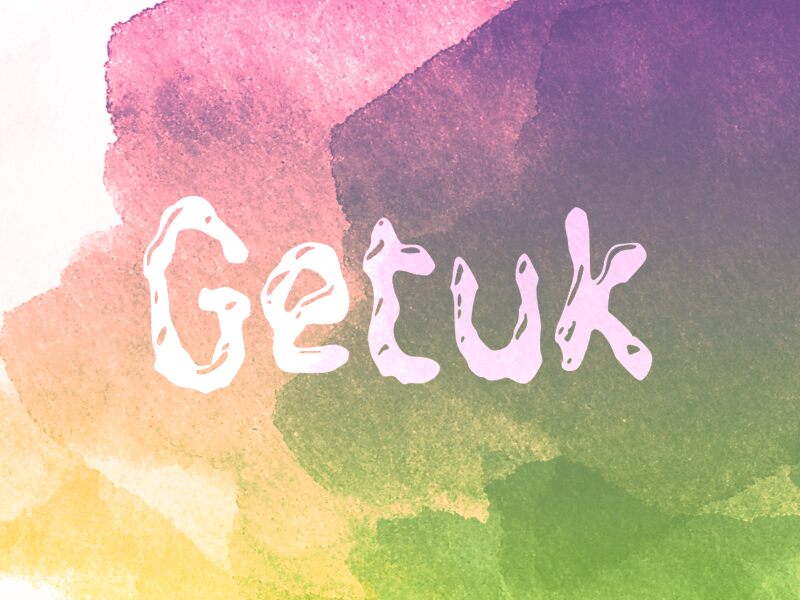
Getuk
Getuk, a captivating display font created by the talented designer wep, exudes a mesmerizing blend of organic fluidity and dynamic energy. With its condensed, yet expressive structure, this typeface commands attention, effortlessly evoking a sense of movement and visual intrigue. The unique, flowing letterforms dance across the page, seamlessly blending bold, confident strokes with subtle, undulating curves. Getuk's distinct personality lends itself to a wide range of design applications, from bold headlines and attention-grabbing branding to visually captivating editorial layouts and packaging designs.
This versatile font excels in projects that require a strong, impactful presence. Its condensed nature makes it an excellent choice for maximizing limited space, while its striking aesthetic appeals to designers seeking to create a lasting impression. Getuk's versatility extends to various industries, from fashion and lifestyle to sports and entertainment, where its dynamic character can elevate the visual identity and captivate the audience.